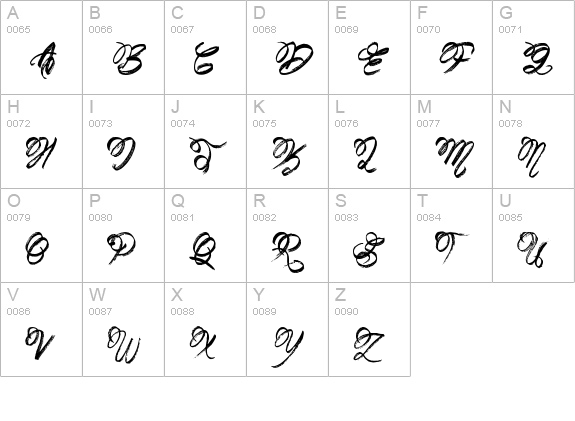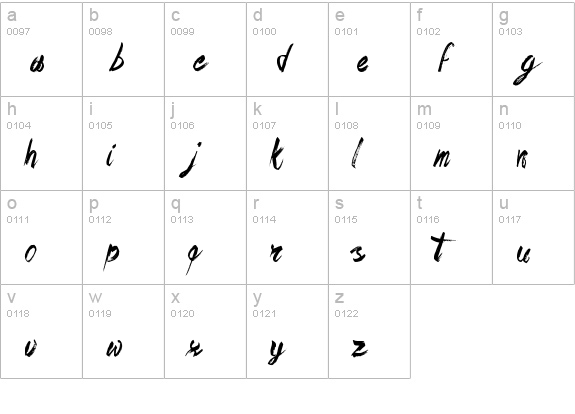
The Way You Move Font Details
The Way You Move font is a captivating and dynamic typeface that exudes a sense of motion and fluidity. Its elegant and curved letterforms gracefully dance across the page, creating a visually stunning display of typography. This font is perfect for projects that require a touch of sophistication and playfulness, such as branding, advertising, and editorial design. Its smooth and flowing lines add a sense of movement and energy to any text, making it truly stand out from the crowd. The Way You Move font is not only visually appealing, but it is also incredibly versatile. It can be used for both headlines and body text, ensuring a cohesive and harmonious design throughout your project. Its legibility remains intact, even at smaller sizes, making it suitable for various print and digital applications. One of the most remarkable features of The Way You Move font is that it is freely available to download at FontsMarket.com. This means that you can easily access and use this stunning typeface without any cost. Whether you are a professional designer or a hobbyist, the accessibility of this font allows you to add a touch of elegance and creativity to your work without breaking the bank. So, if you are looking for a font that effortlessly captures the essence of movement and grace, while remaining accessible and free, The Way You Move font is the perfect choice. Download it today from FontsMarket.com and let your creativity flow with every letter.